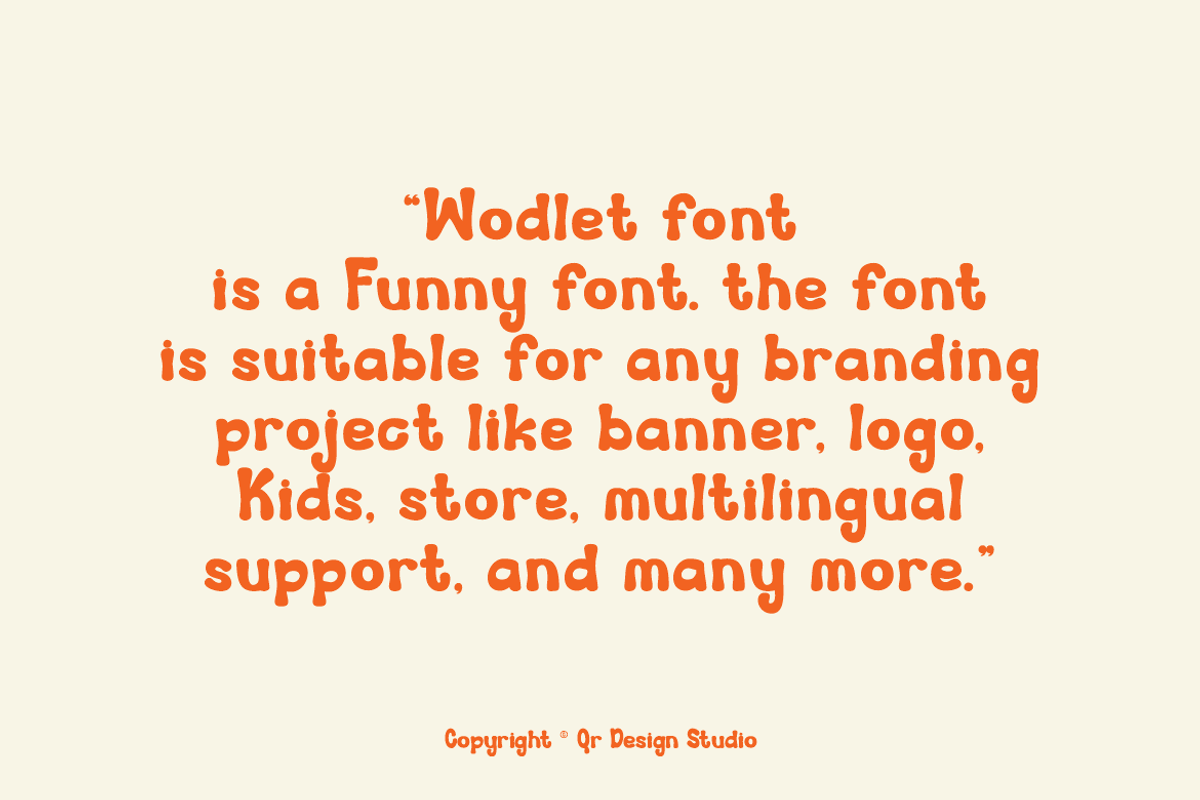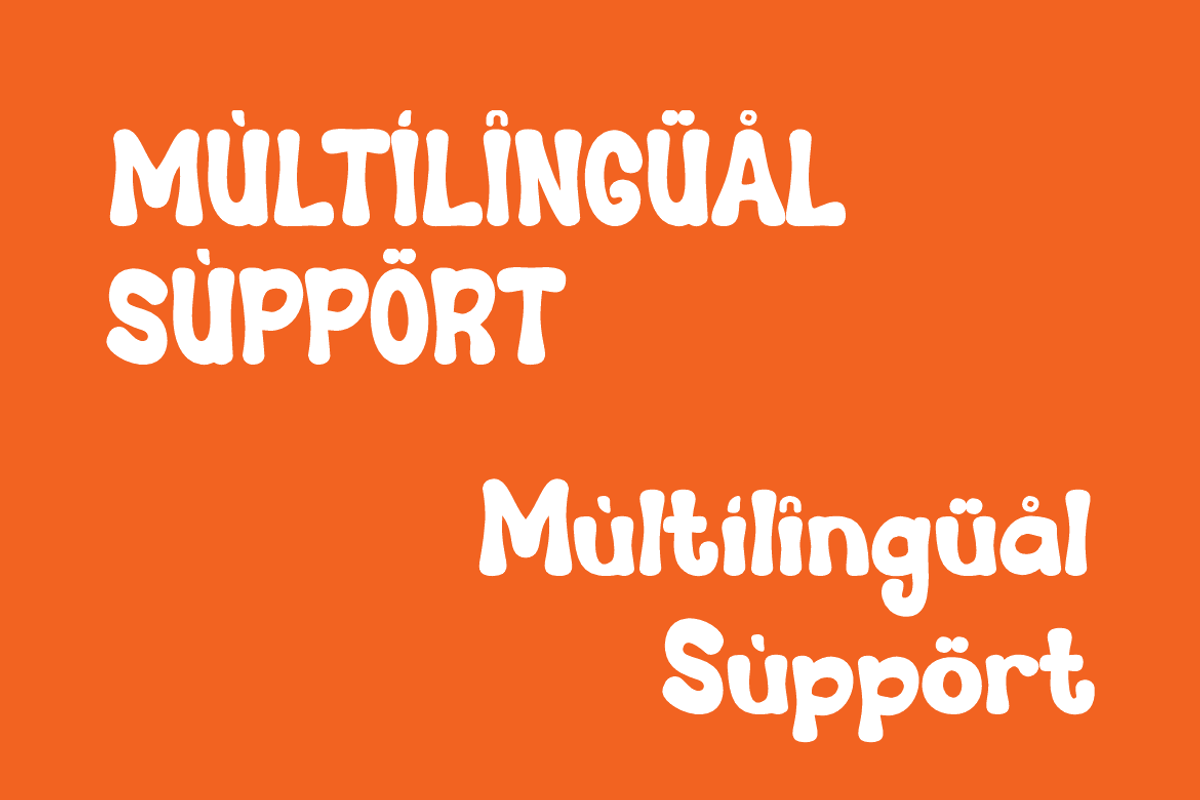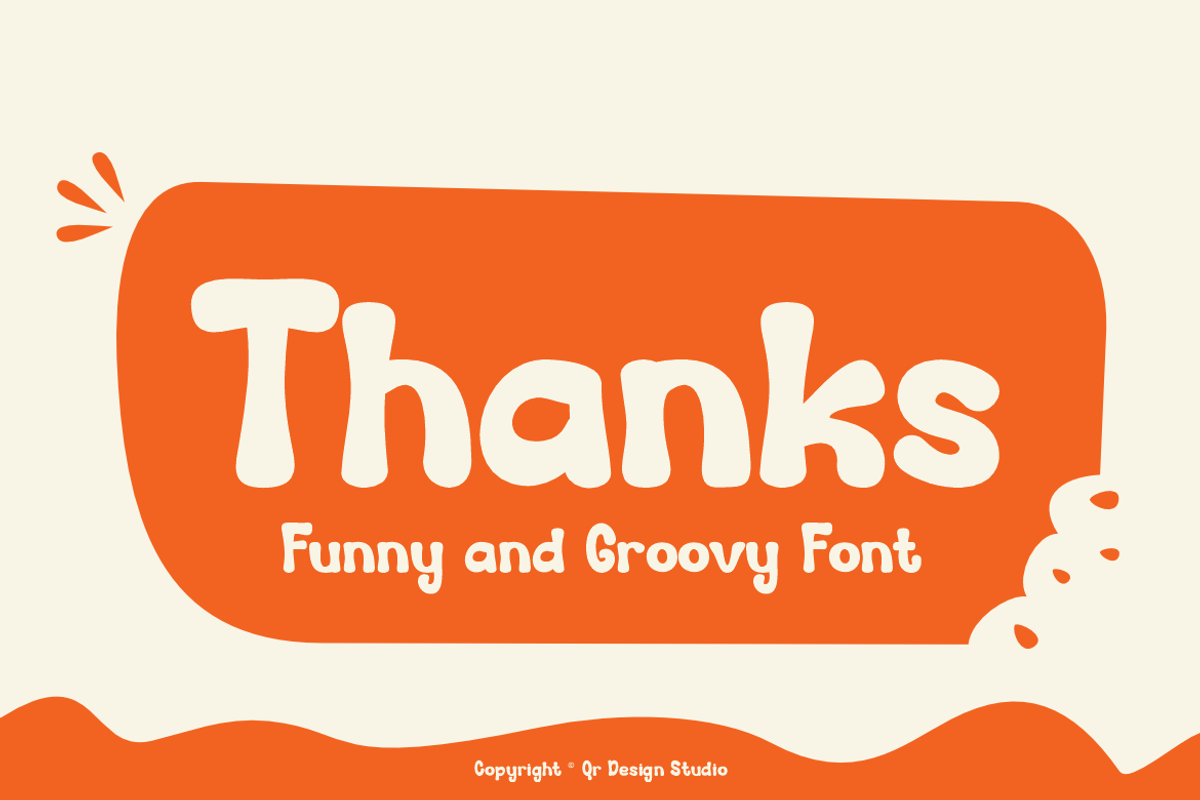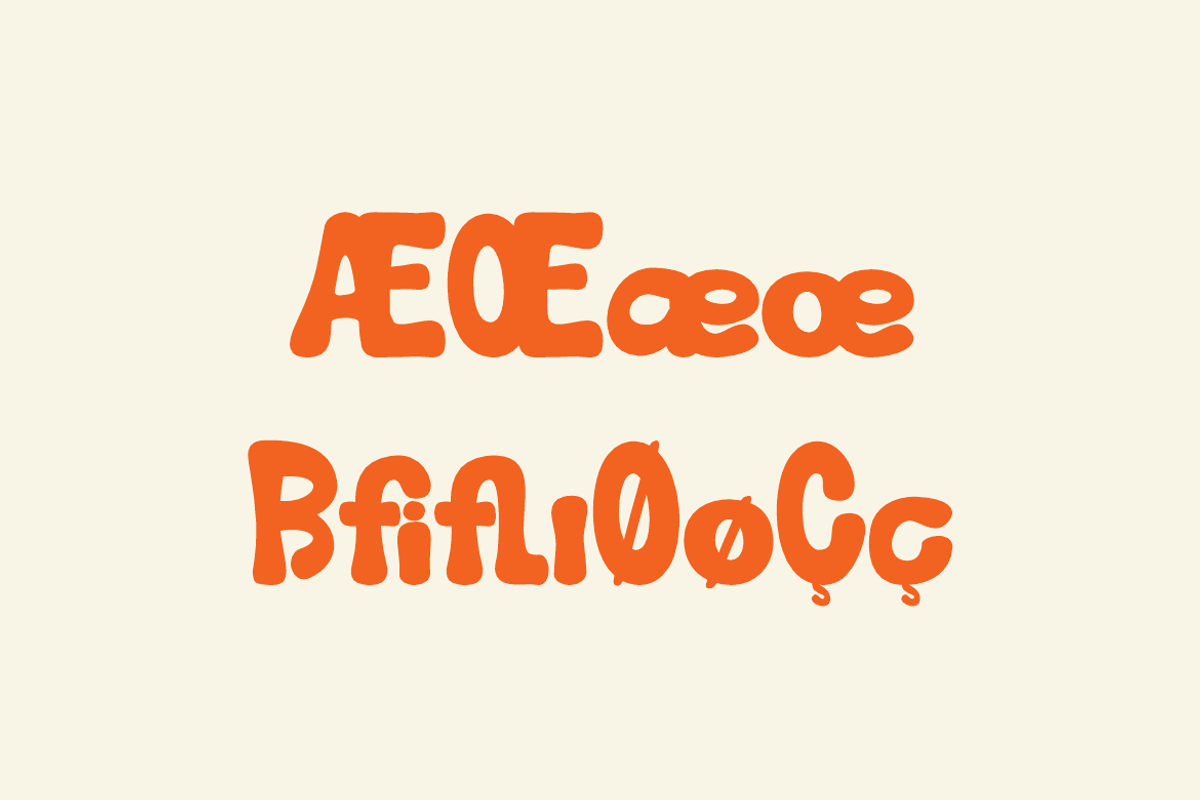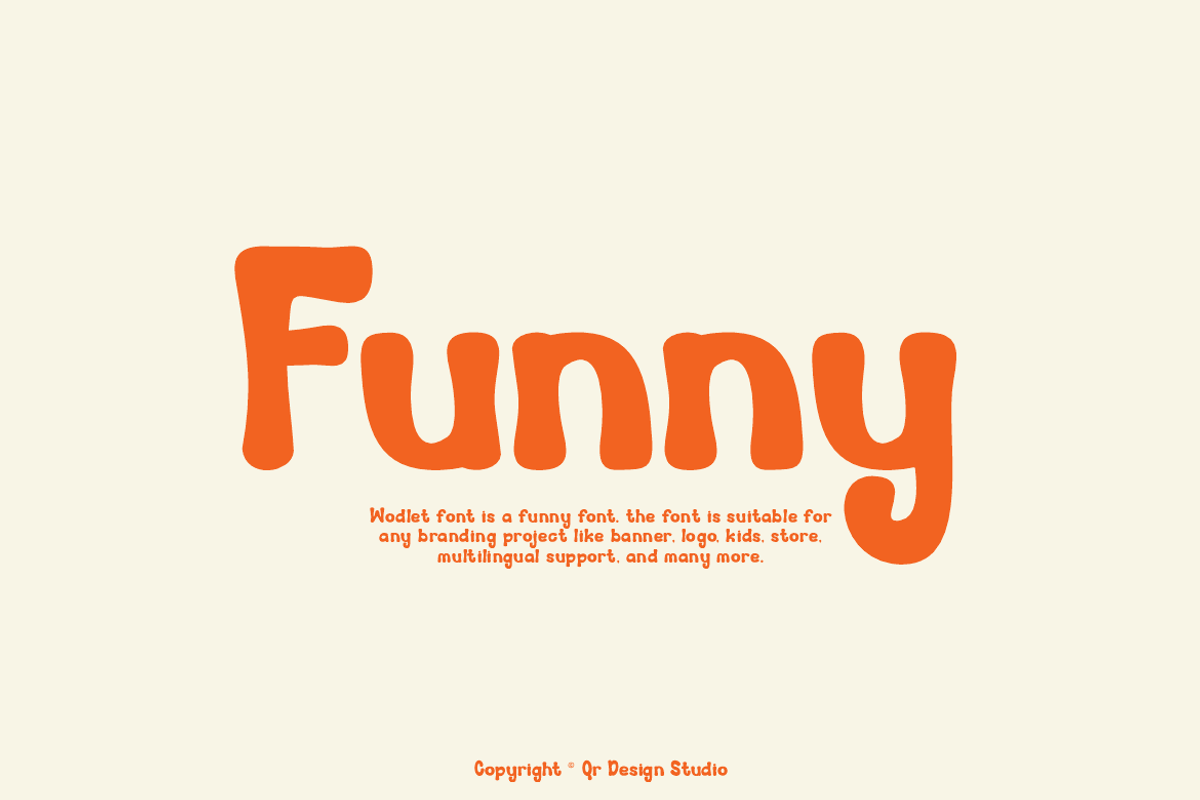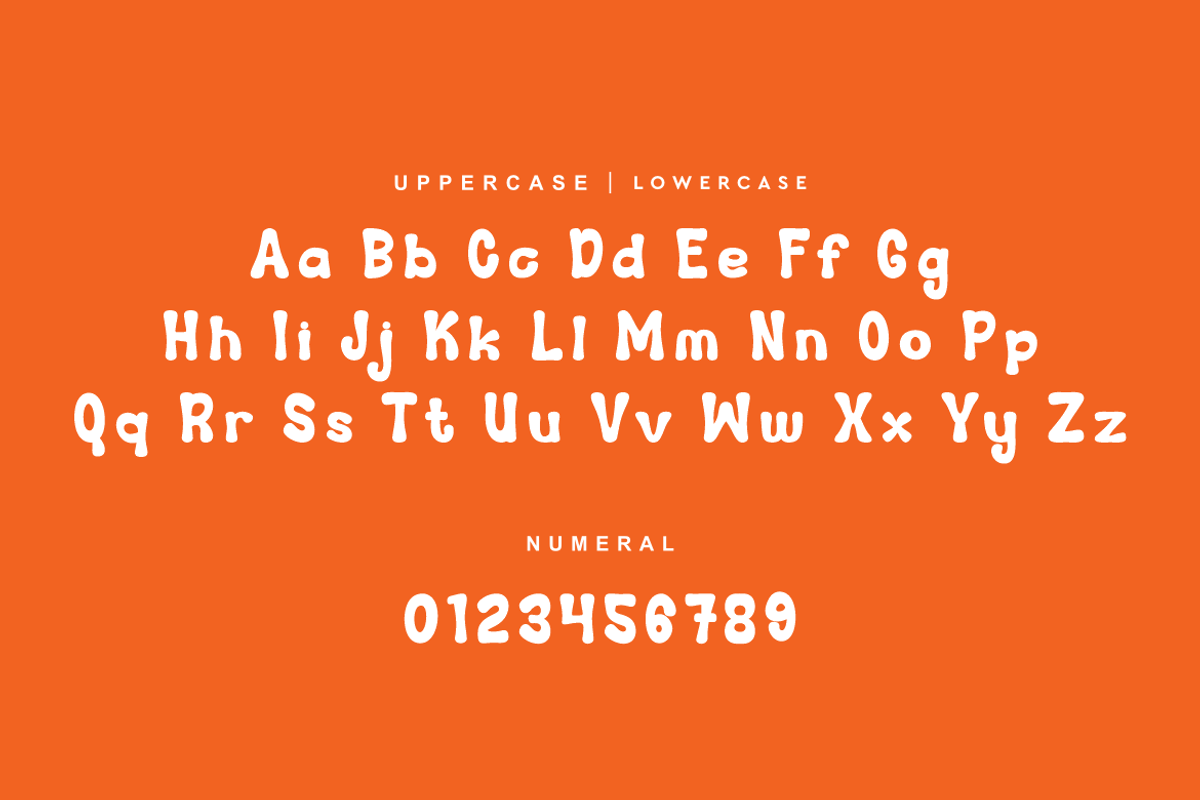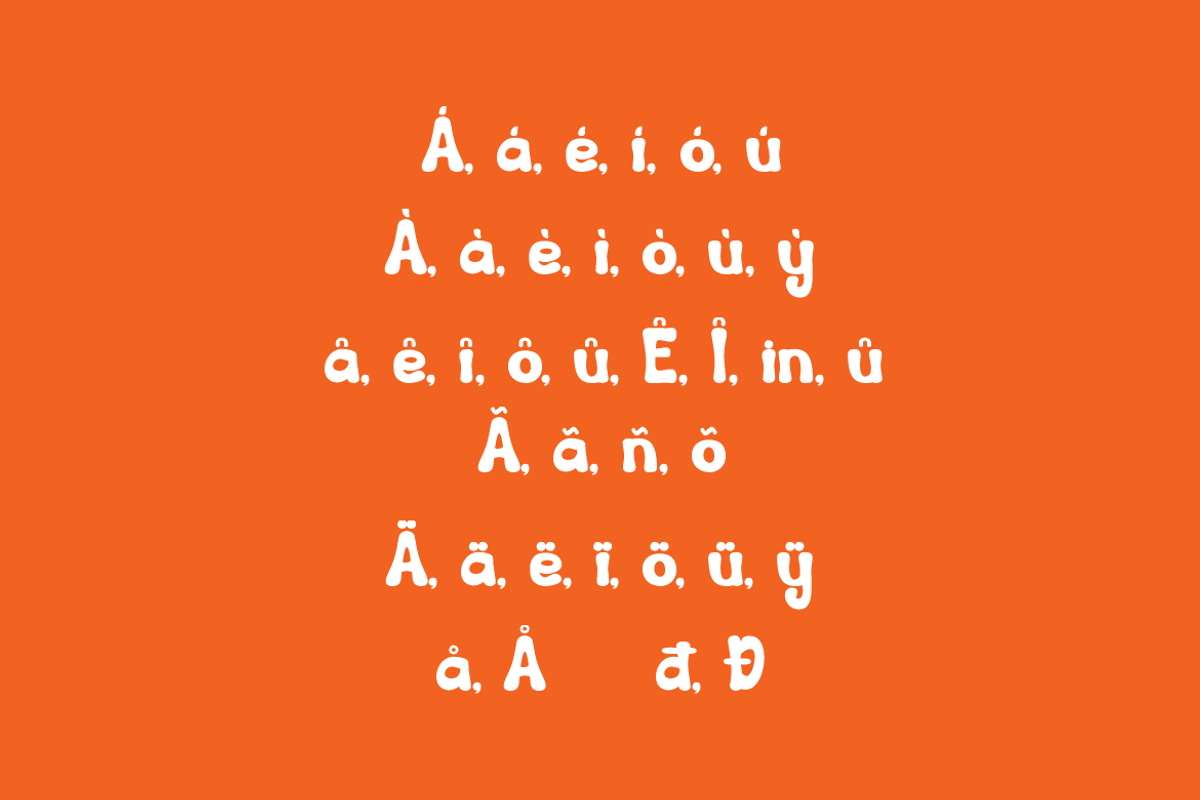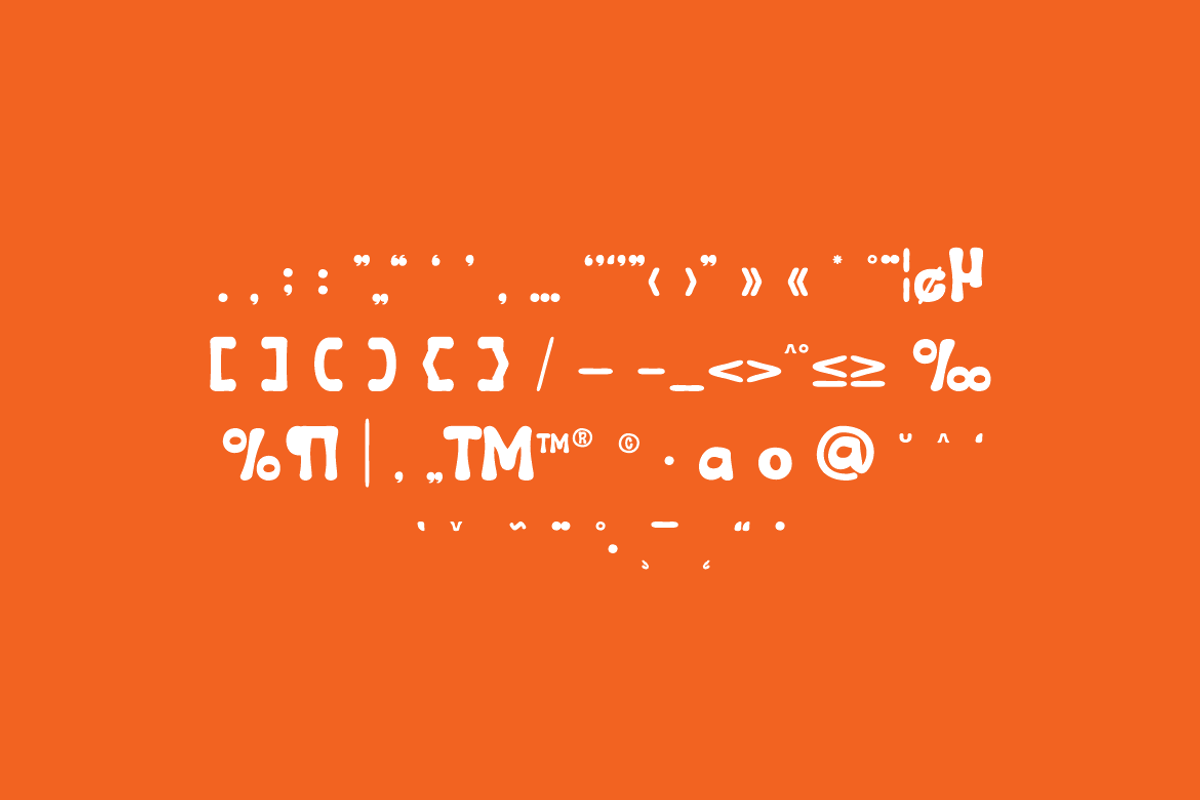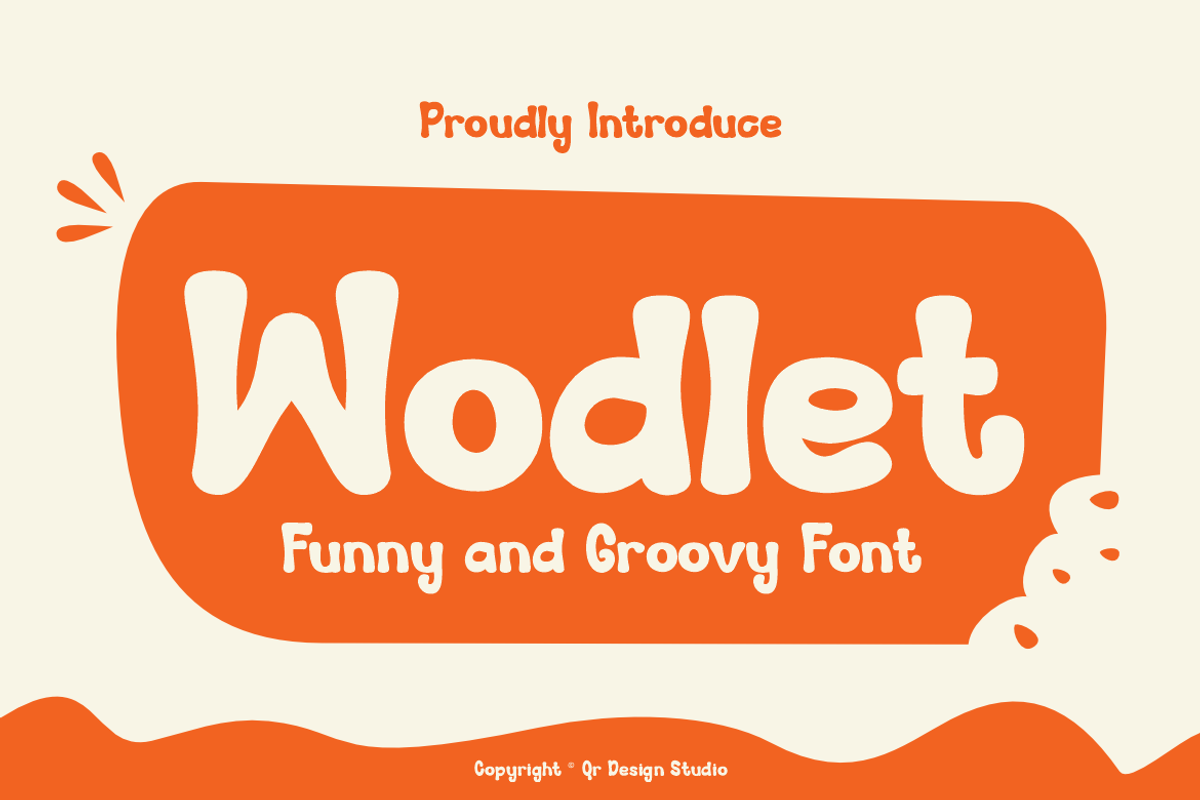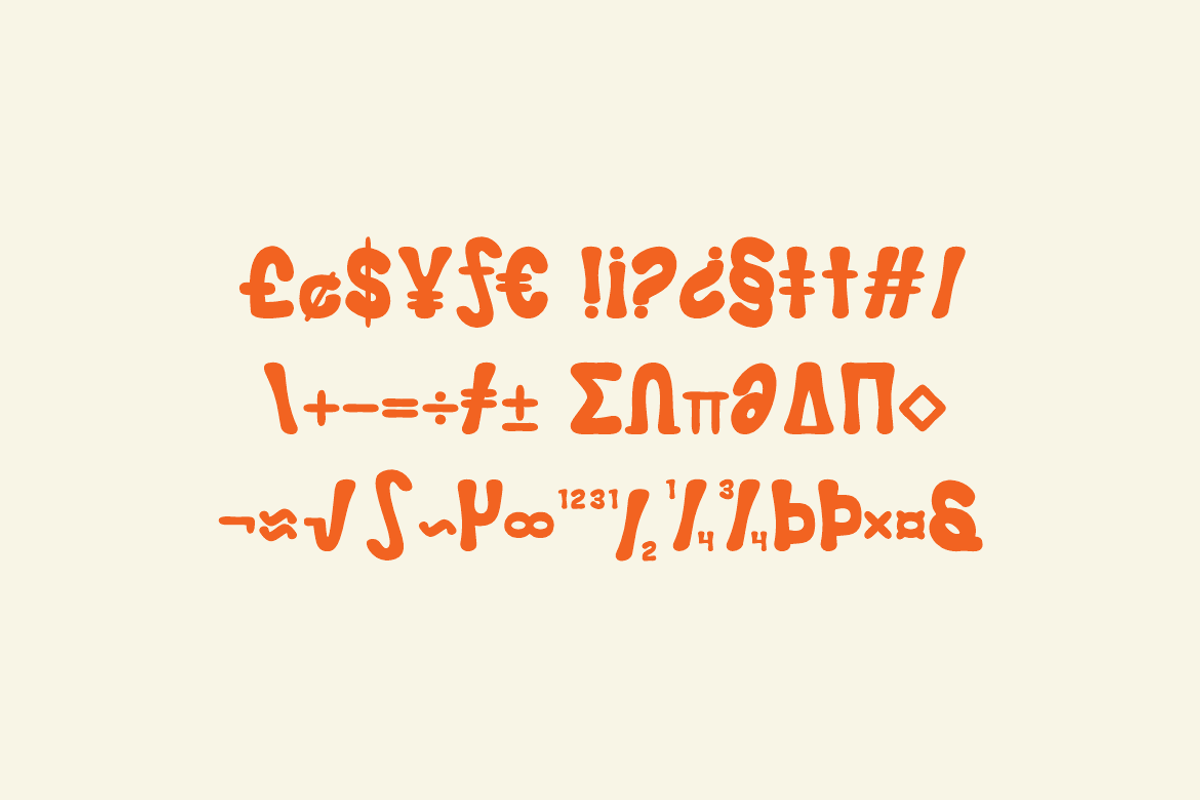
Wodlet - Funny Groovy Font
Wodlet Font is a best and authentic display font. The font is suitable for any branding project like poster, logo, kids, food, and many more. Outstanding in a wide range of contexts.